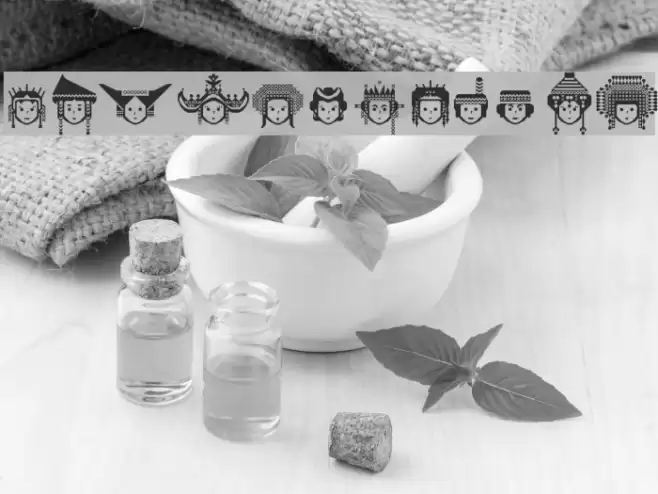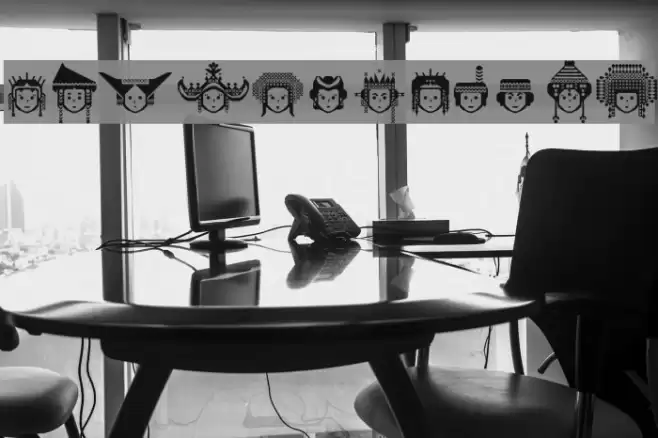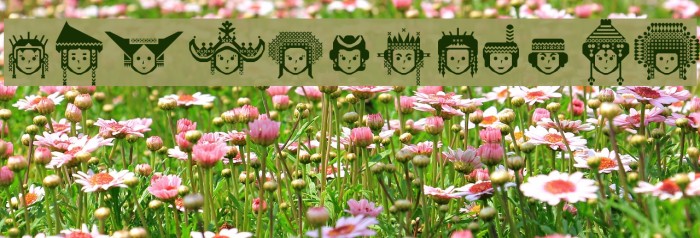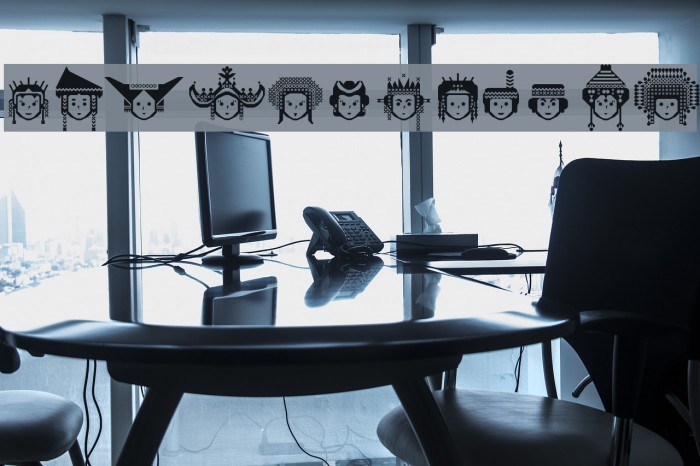
Indonesian Woman Regular Font
Indonesian Woman Regular Description
This font is a decorative display typeface featuring stylized illustrations of Indonesian women in traditional attire. Each character is represented by a unique headpiece and facial expression, showcasing cultural diversity and heritage. The design is intricate, with detailed patterns and textures that add a rich, cultural aesthetic. The characters are bold and visually striking, making them ideal for thematic projects that require a touch of cultural authenticity and artistic flair.
A decorative font with stylized illustrations of Indonesian women in traditional attire from Dingbats fonts.
- Proposed Projects: Ideal for cultural event posters, educational materials about Indonesian culture, themed invitations, and artistic projects that celebrate diversity.